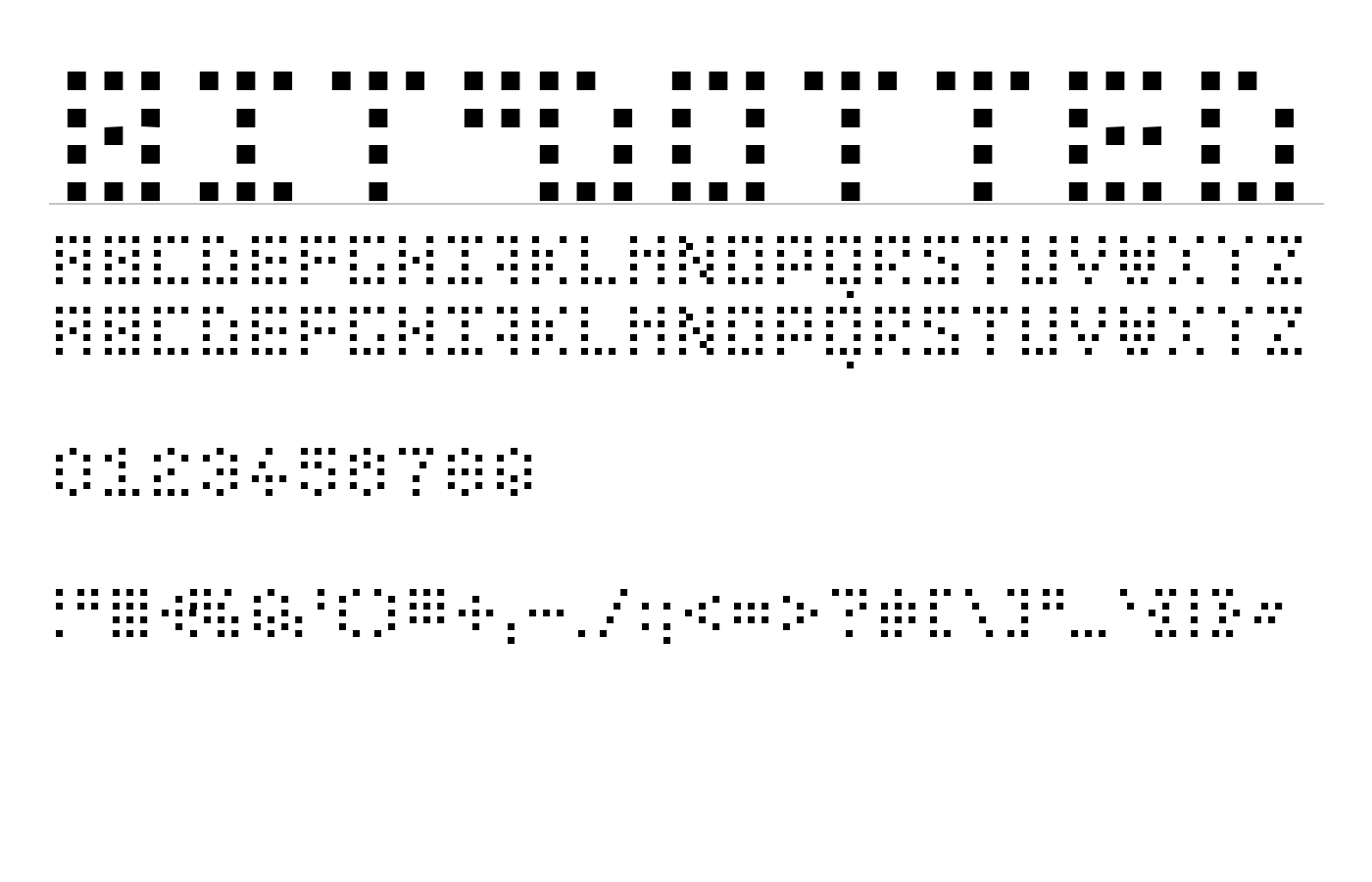
BitDotted is a unique, pixel-inspired sans serif font characterized by its bold, square dot matrix structure that evokes a digital or retro electronic display. Its uniform weight and wide spacing give it a modern, techy, and playful vibe, making it ideal for digital-themed designs, sci-fi projects, and creative branding where a futuristic yet readable style is desired. This font works best for headlines, logos, and signage that aim to capture attention with a distinctly modern and experimental look.
BitDotted Font